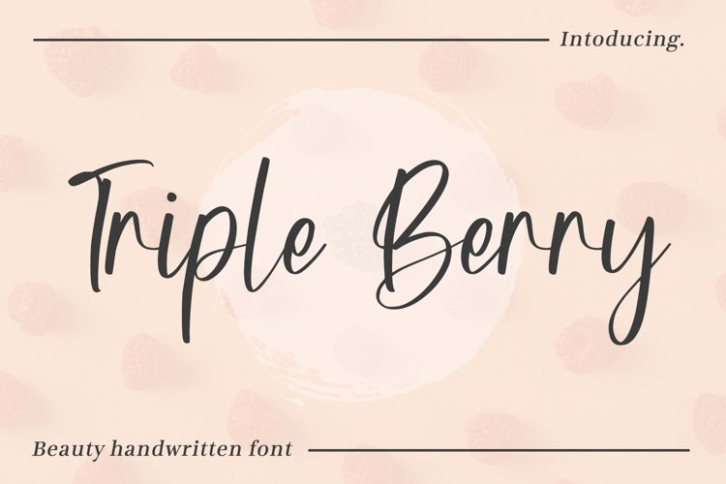
Triple Berry is a gorgeous font that was realeased on June 3, 2022. The font can be used in many style contexts and design environments. Perfect for invitations, magazines, websites, logos, and more! It was designed by plusstore and the file size is 6.19 MB. Thanks for checking out this font!